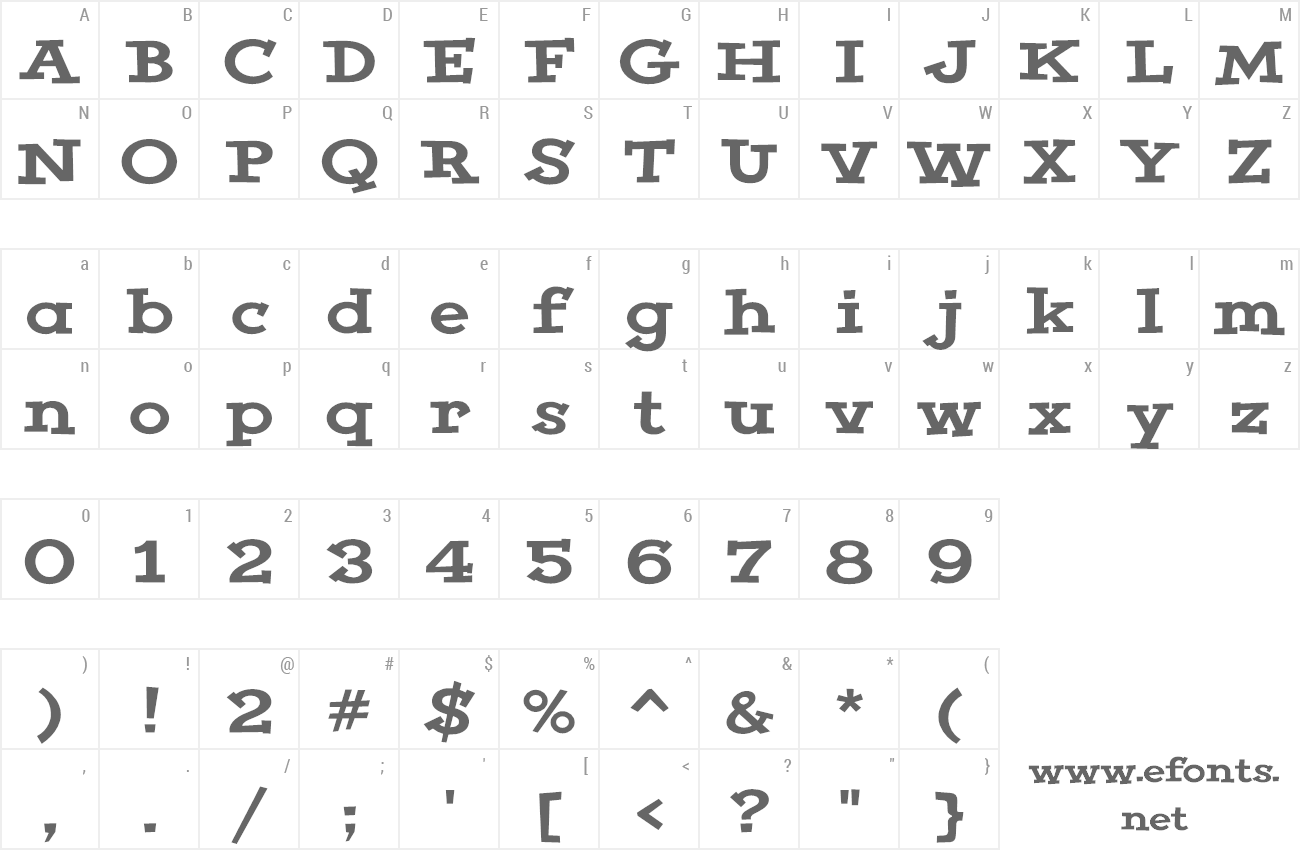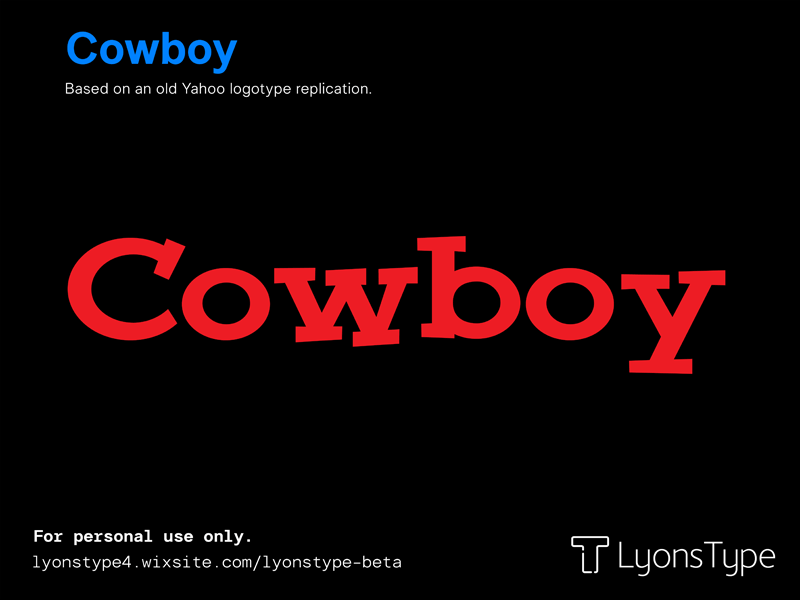
| Font name: | Cowboy |
| Author: | LyonsType |
| Note by LyonsType | |
"Cowboy" is a refined revival of the old Yahoo! logotype from the 1990s. The inclusions in this font from the original Yahoo! logo font are as follows: Lowercases, ligatures, discretionary ligatures, and stylistic alternates. All LyonsType fonts are freely available to download at: https://lyonstype4.wixsite.com/lyonstype-beta For any inquiries, please contact me at lyonstype@pm.me Update 3/6/2024 Font renamed to Cowboy. |